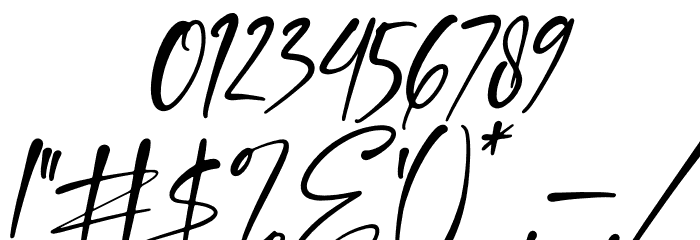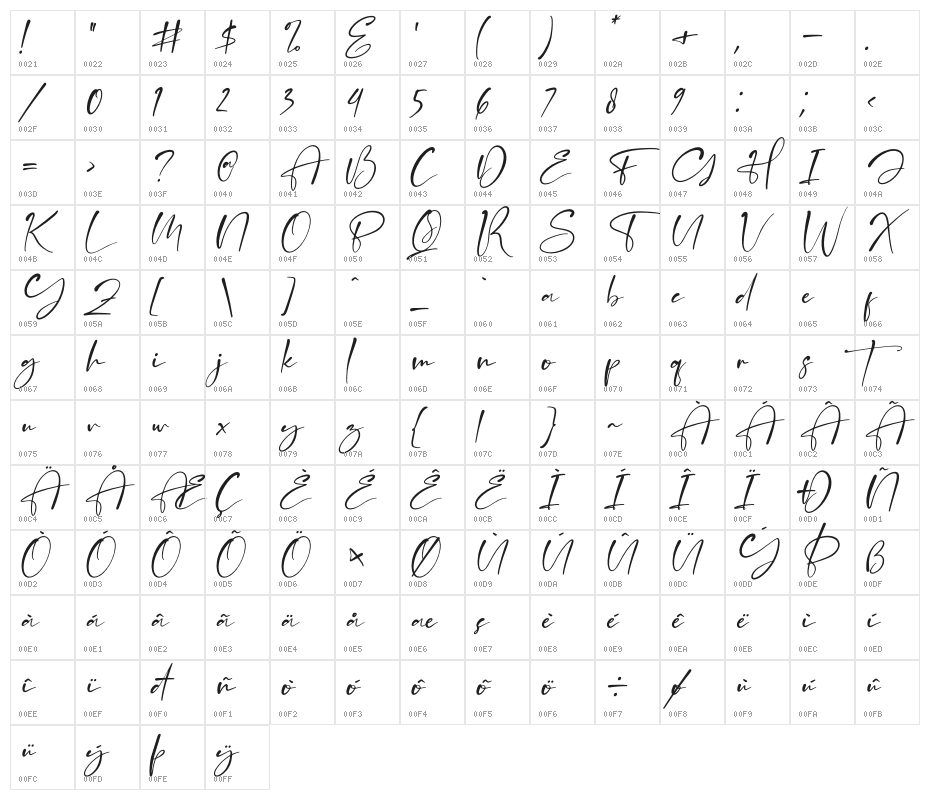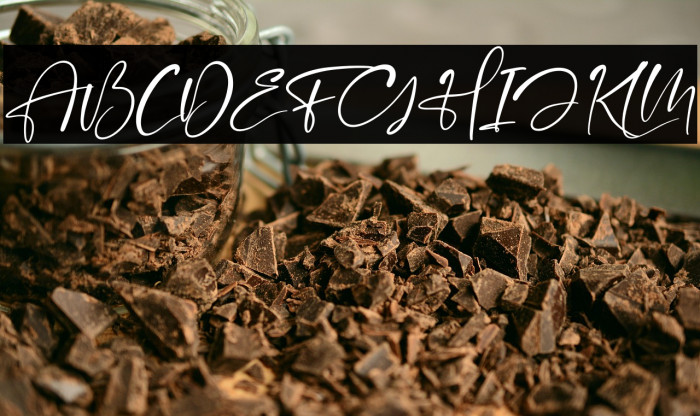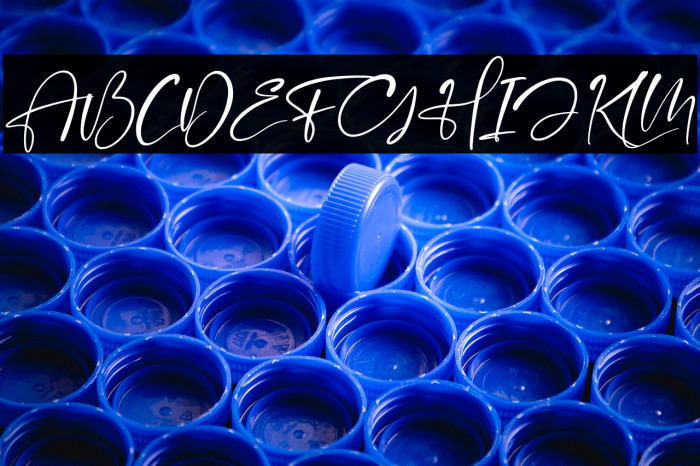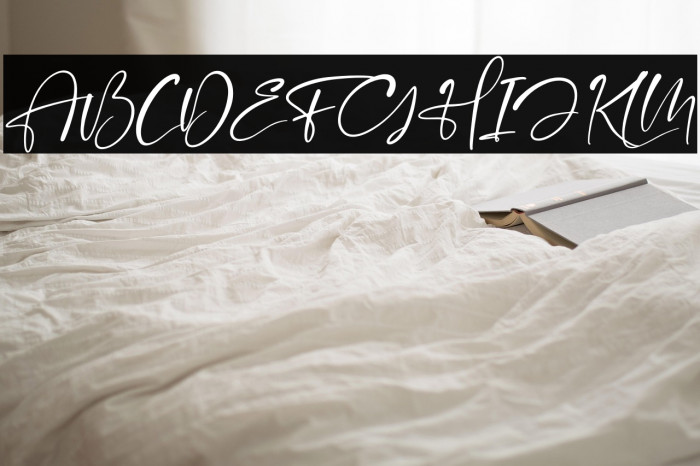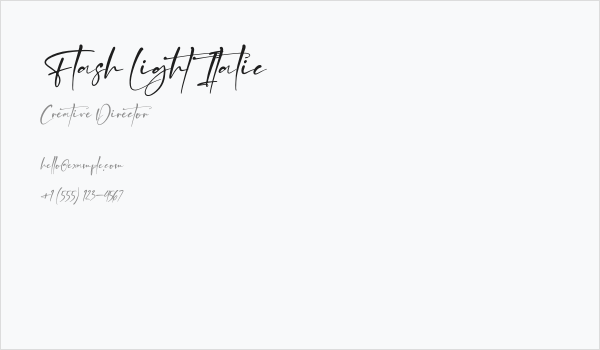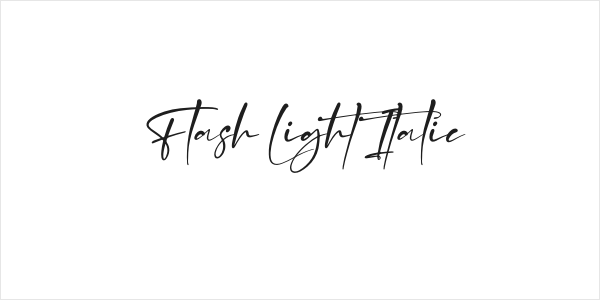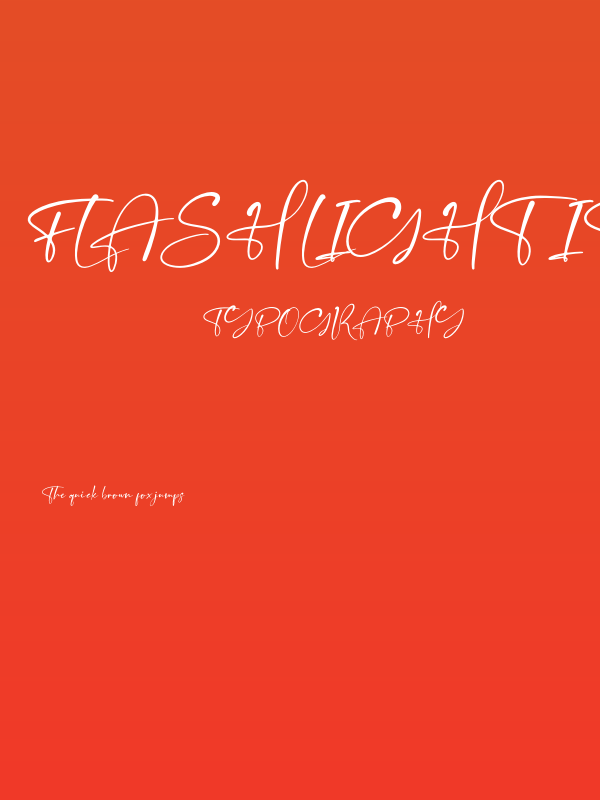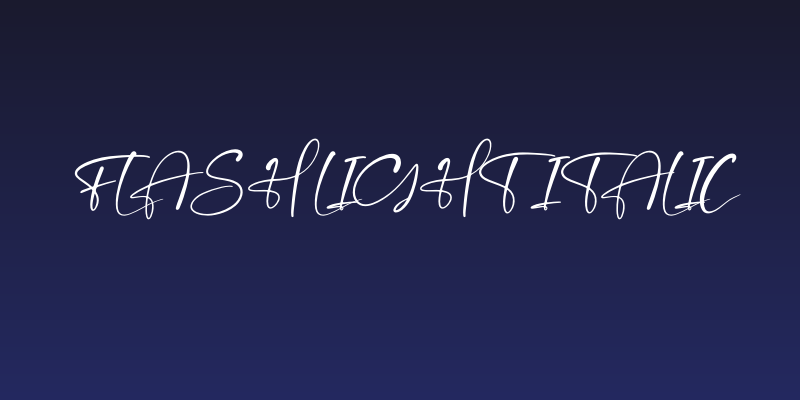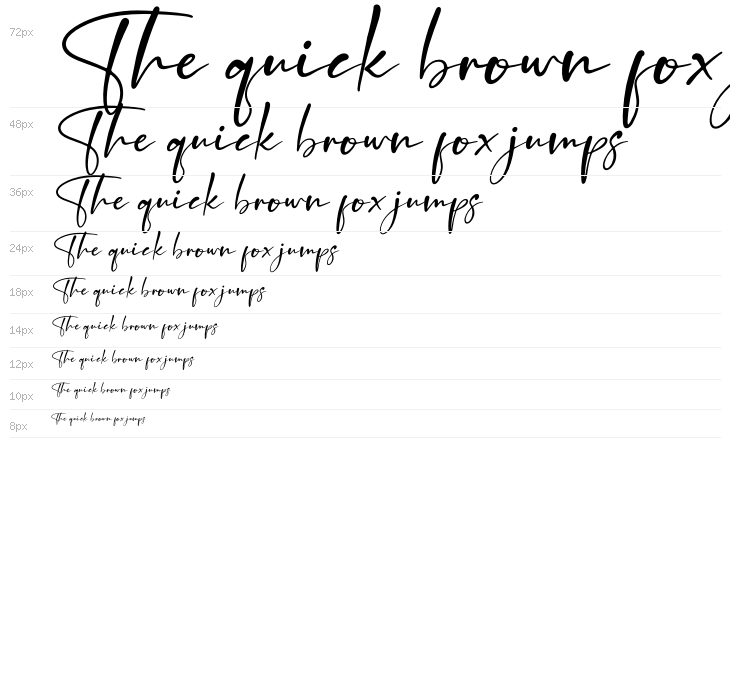
Flash Light Italic Font
Flash Light Italic Description
This font exhibits a dynamic and flowing script style, characterized by its elegant and cursive letterforms. The uppercase letters are tall and slender with a slight slant, while the lowercase letters maintain a consistent fluidity, enhancing the overall graceful appearance. The numbers and special characters are designed to complement the alphabet, featuring similar curves and strokes. The font's aesthetic is both modern and artistic, making it suitable for creative and expressive design projects.
| Proposed Projects | Ideal for wedding invitations, greeting cards, branding, and artistic posters. |